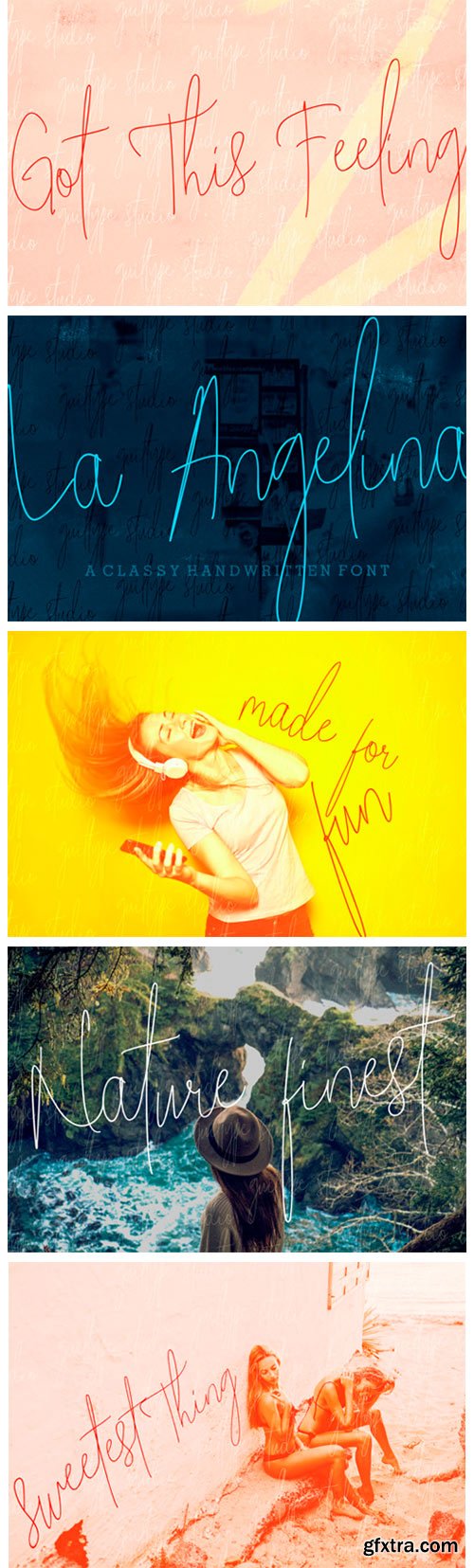
La Angelina Font
La Angelina is a classy, modern & feminine handwritten font. Every single letters has been carefully crafted to make your text look beautiful. With it’s modern script style ‘La Angelina’ will be perfect for many different projects such as: photography, watermarks, quotes, blog headers, posters and much more!